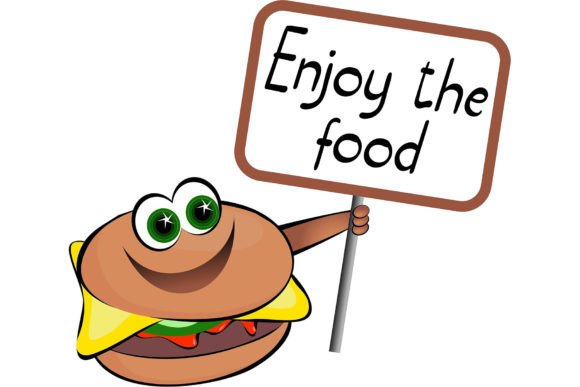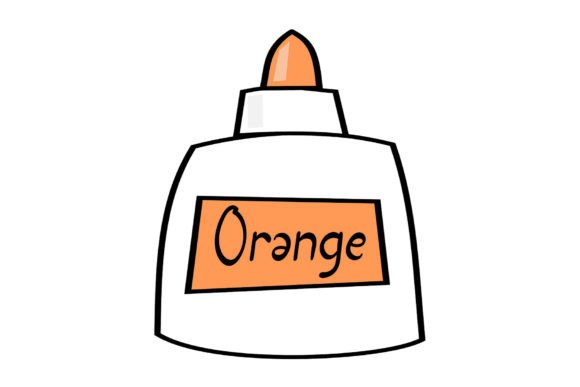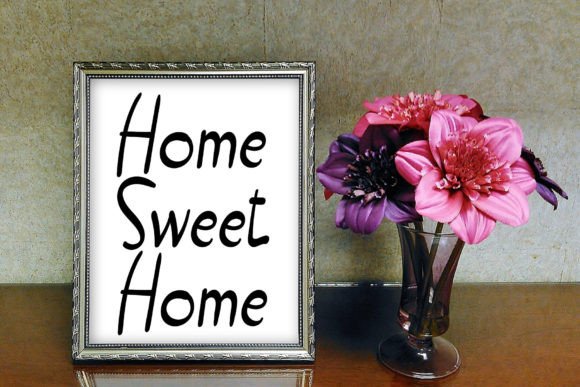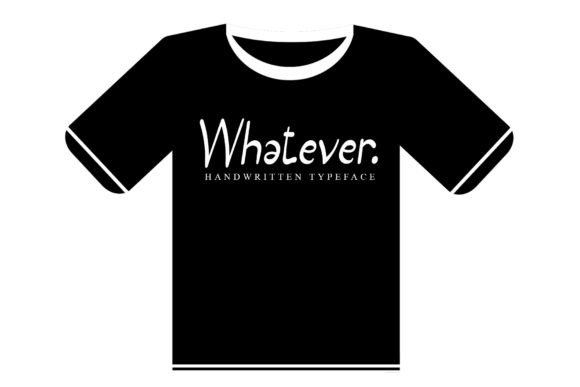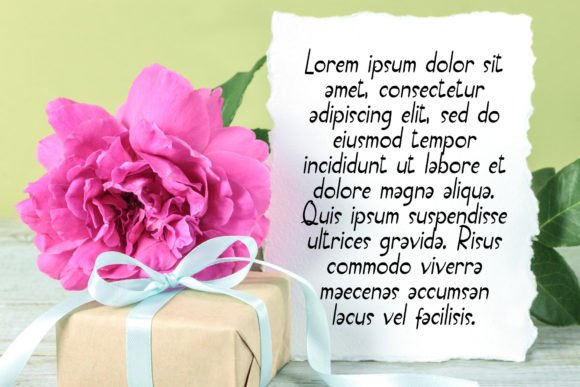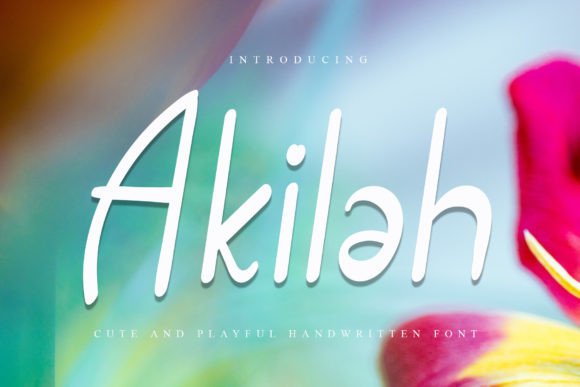
Akilah Font: Elevate Your Designs with Elegance and Sophistication
Are you a designer or crafter looking for a unique and elegant font to add a touch of sophistication to your projects? Look no further than Akilah Font. This beautiful handwritten font is perfect for a variety of design applications, from wedding invitations and greeting cards to billboards, logos, and business cards.
The Characteristics of Akilah Font
Akilah Font is a one-of-a-kind typeface that boasts a distinctive, cursive style with flowing lines and elegant curves. Its unique characteristics make it an excellent choice for designers who want to add a personal touch to their work. The font’s handwritten appearance gives it a warm and inviting feel, making it perfect for projects that require a touch of personality.
Why Choose Akilah Font?
So, why should you choose Akilah Font for your next design project? Here are just a few reasons why this font stands out from the rest:
• Unique and Elegant: Akilah Font is a truly unique and elegant typeface that will set your designs apart from the crowd.
• Versatile: This font is perfect for a wide range of design applications, from wedding invitations and greeting cards to billboards and logos.
• Handwritten Touch: The font’s handwritten appearance gives it a warm and inviting feel that’s perfect for projects that require a personal touch.
• Easy to Read: Despite its elegant and cursive style, Akilah Font is easy to read, making it perfect for body text and headlines.
Design Applications for Akilah Font
Akilah Font is a versatile typeface that can be used in a variety of design applications. Here are just a few ideas to get you started:
• Wedding Invitations: Add a touch of elegance and sophistication to your wedding invitations with Akilah Font.
• Greeting Cards: Create beautiful and personalized greeting cards for any occasion with this stunning font.
• Billboards: Make a statement with Akilah Font on your next billboard design project.
• Logos: Use Akilah Font to create a unique and memorable logo for your business or brand.
• Business Cards: Stand out from the crowd with Akilah Font on your business cards.
Tips for Using Akilah Font
Here are a few tips for using Akilah Font in your design projects:
• Pair with a Sans-Serif Font: Pair Akilah Font with a sans-serif font for a beautiful and contrasting look.
• Use for Headlines and Titles: Use Akilah Font for headlines and titles to add a touch of elegance and sophistication.
• Experiment with Colors: Experiment with different colors and textures to add depth and interest to your designs.
In conclusion, Akilah Font is a unique and elegant typeface that’s perfect for designers and crafters looking to add a touch of sophistication to their projects. Its handwritten appearance, versatility, and ease of use make it an excellent choice for a wide range of design applications. Whether you’re creating wedding invitations, greeting cards, billboards, logos, or business cards, Akilah Font is sure to elevate your designs to the next level.